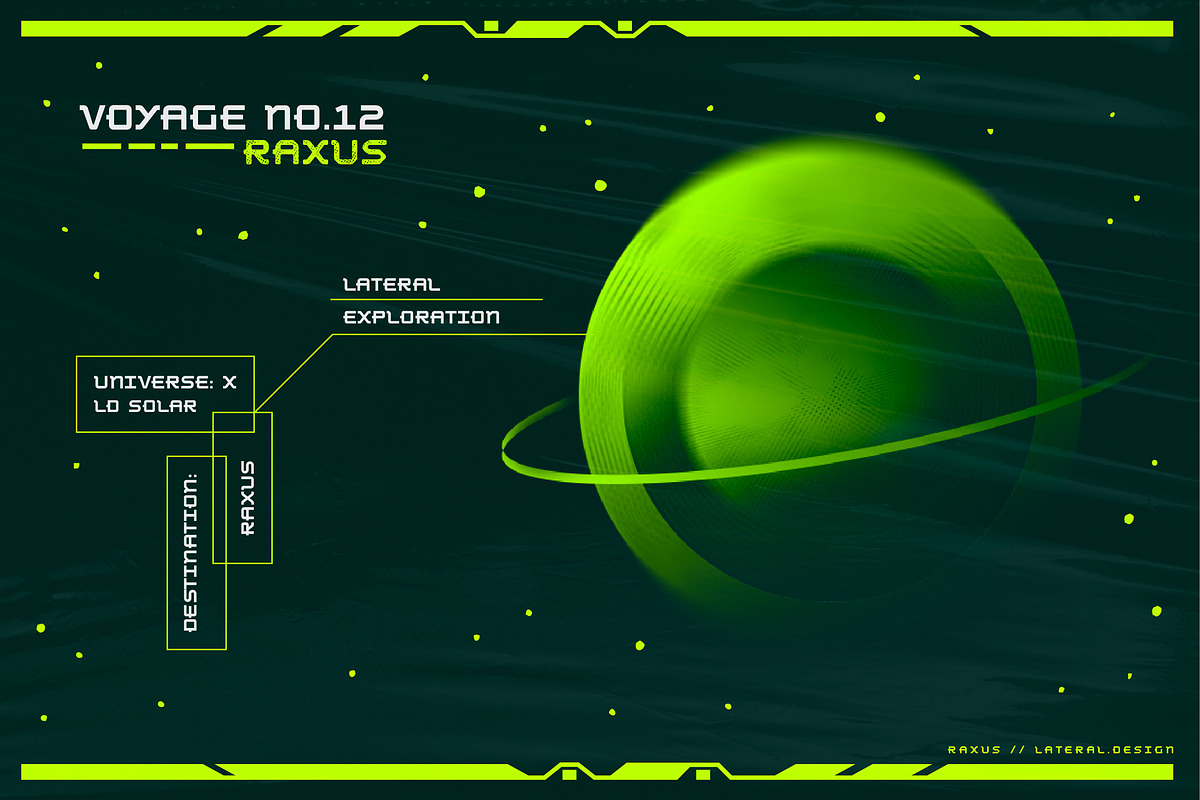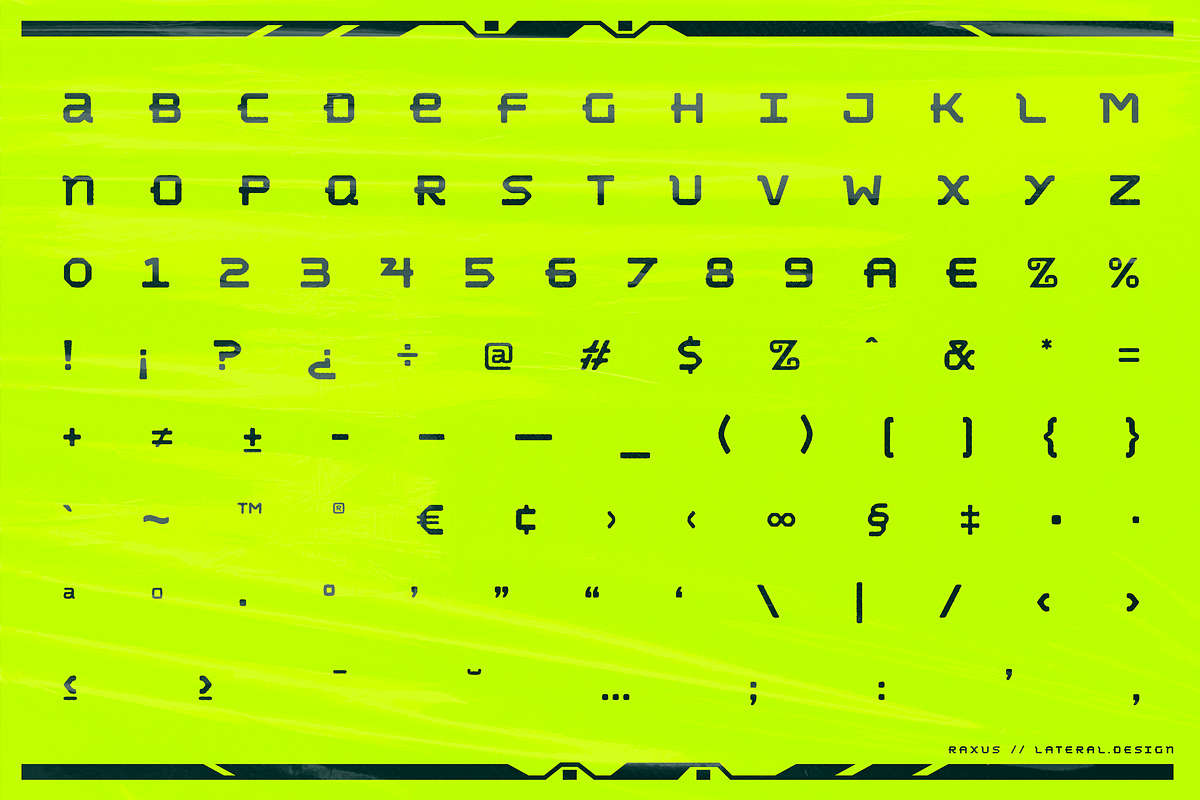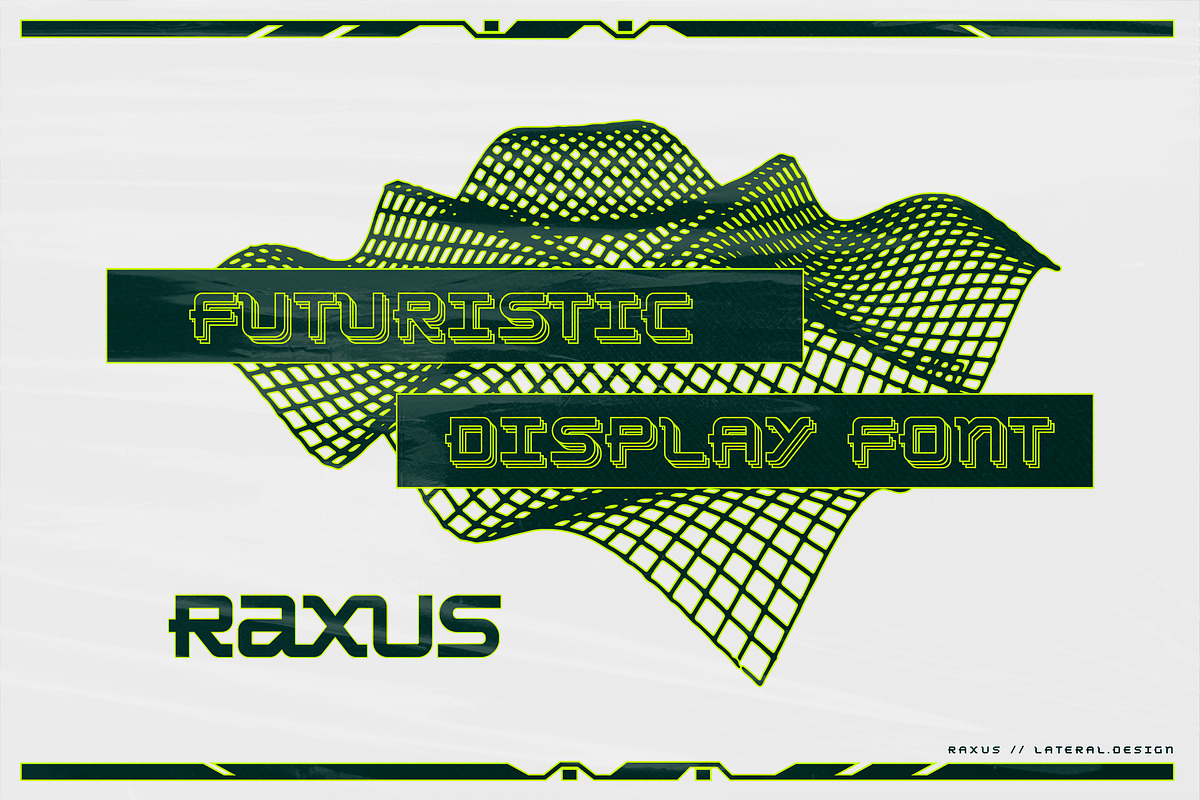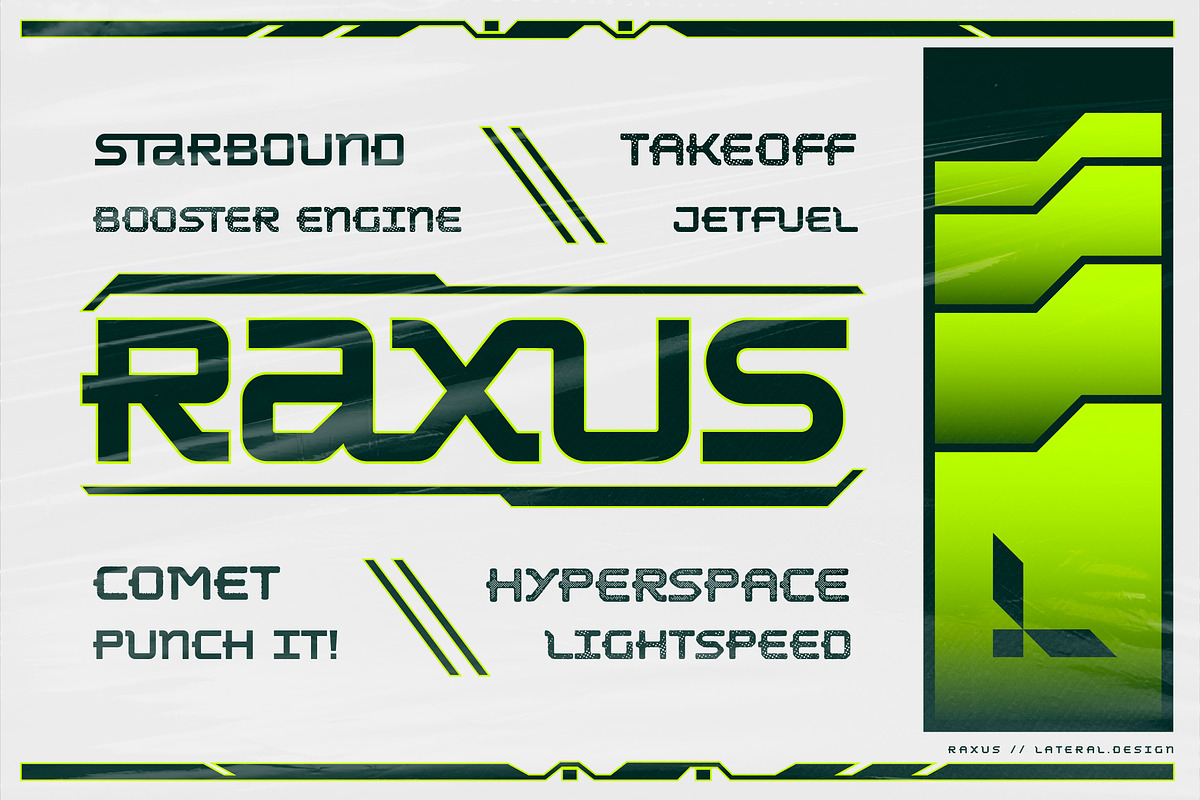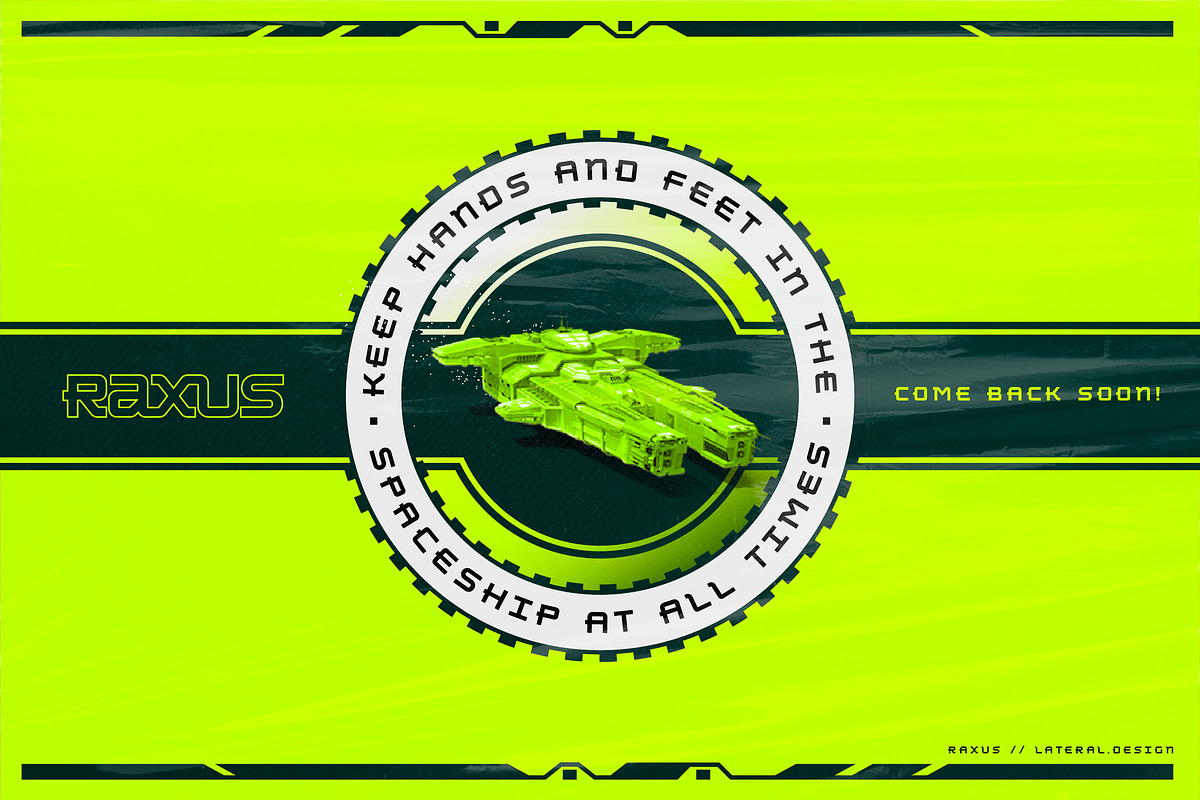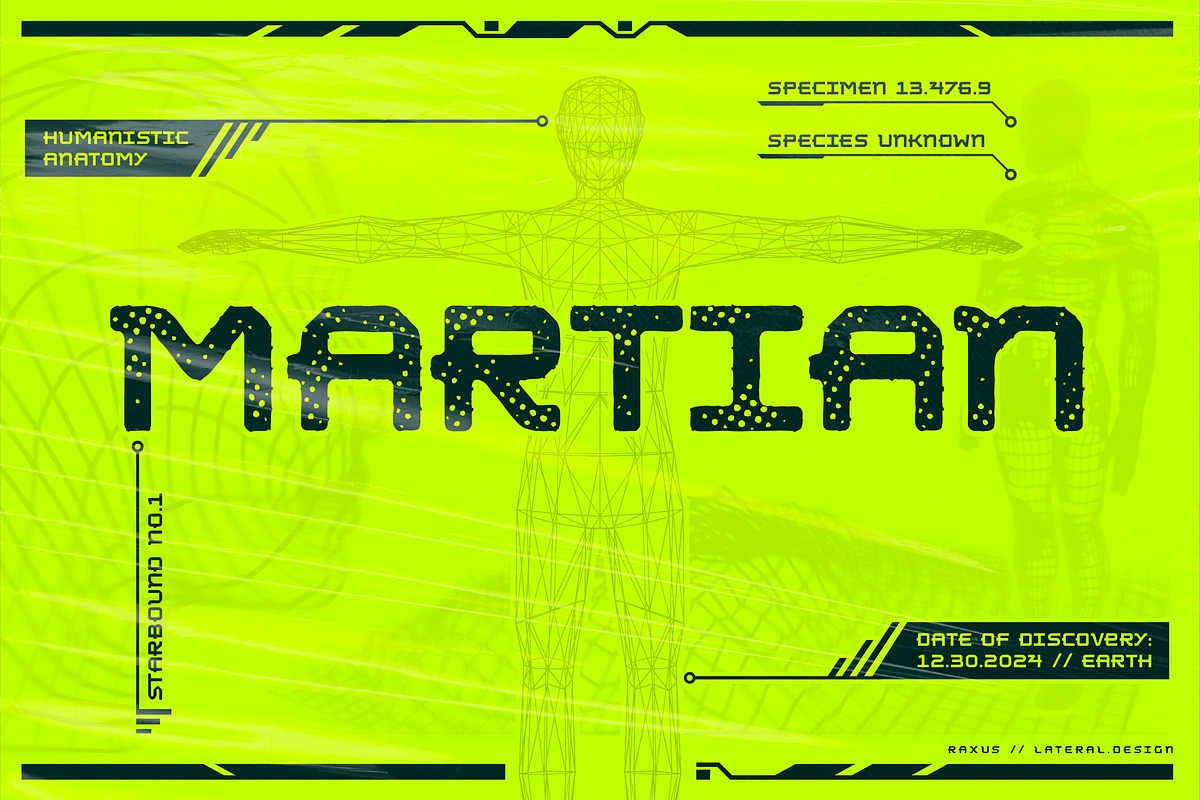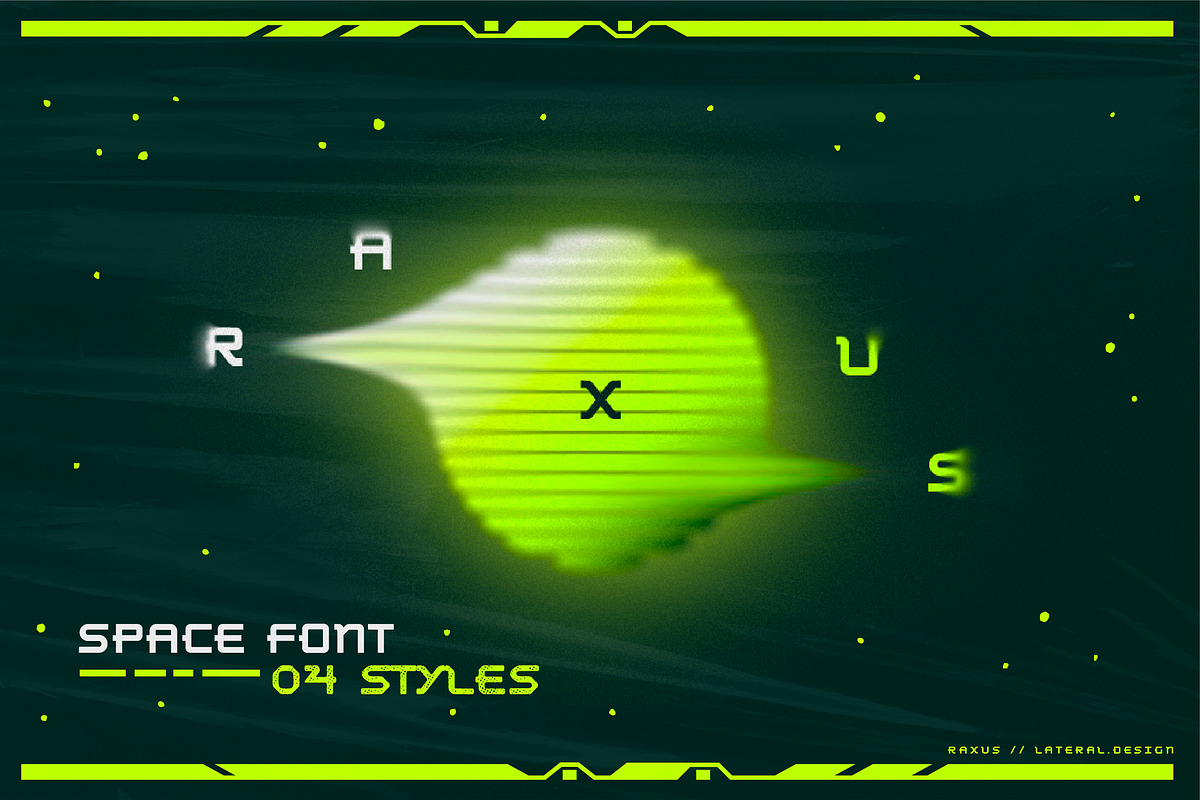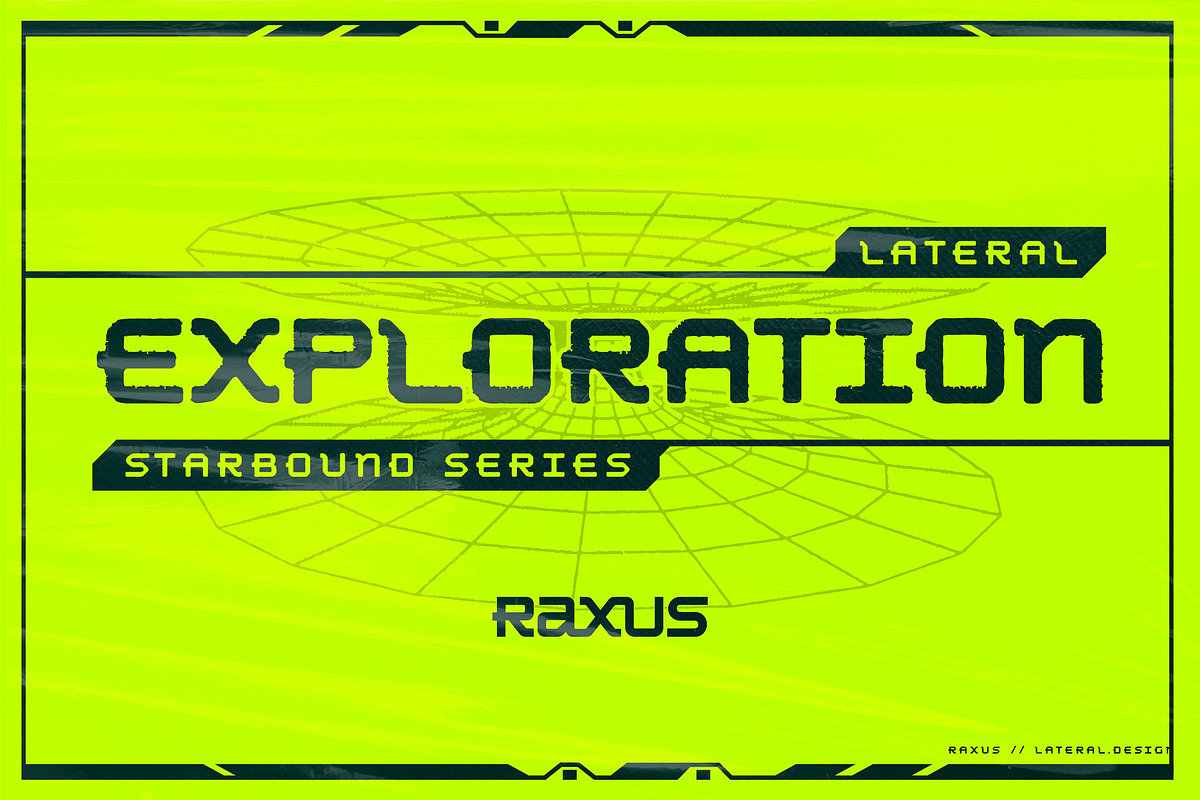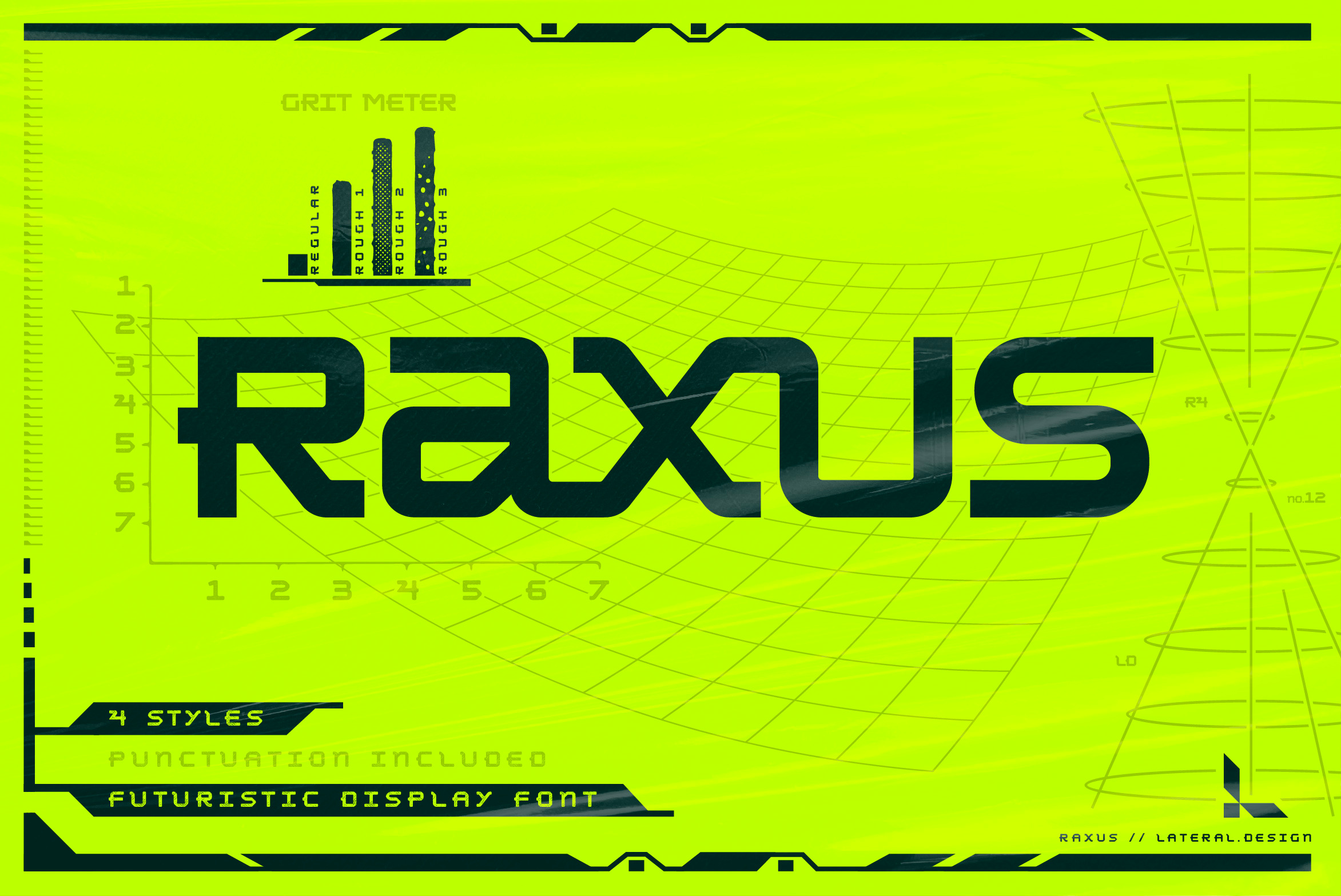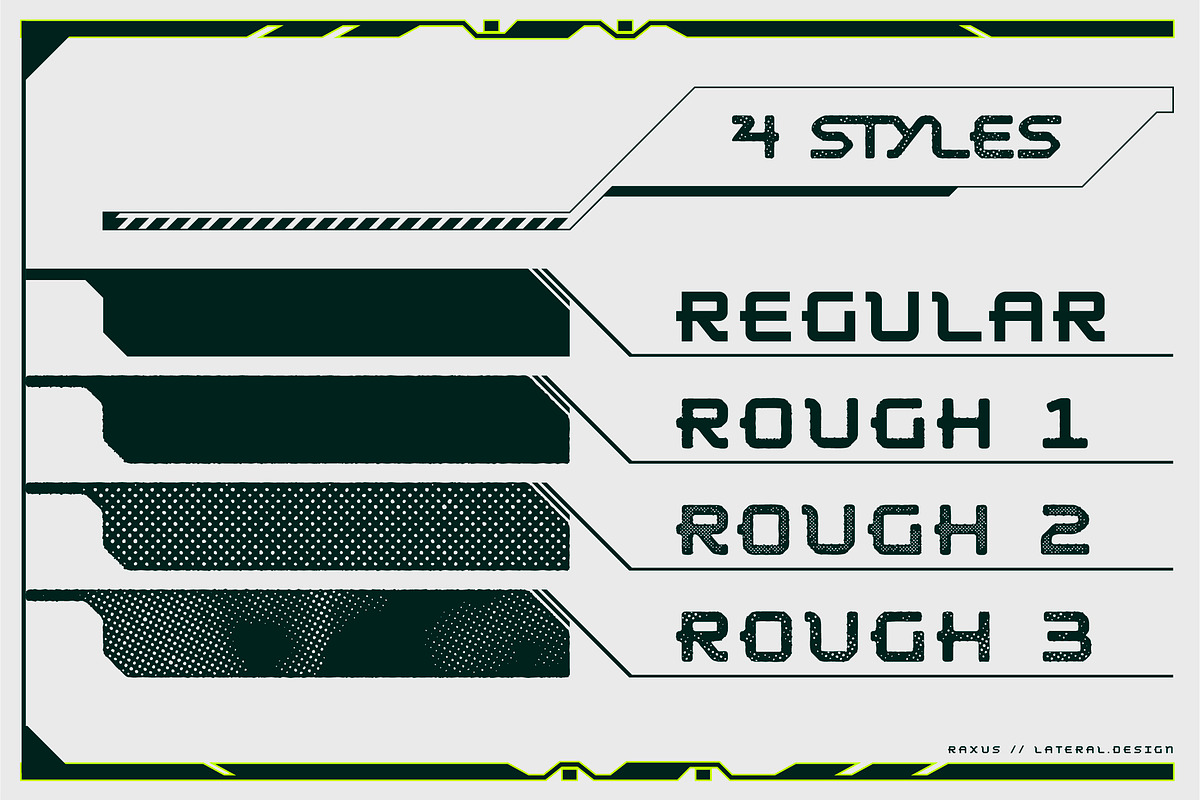
Raxus - Futuristic Font
Raxus is a futuristic display font with 4 styles: Regular and 3 variations of halftone-distressed styles. Raxus is a near mono-width font family that utilizes all-caps for a strong and bold look. This font family can be used for numerous styles of projects, but it is perfect for achieving that futuristic feel with it’s linear type construction. Raxus includes numbers and punctuation.
- All-caps letterforms